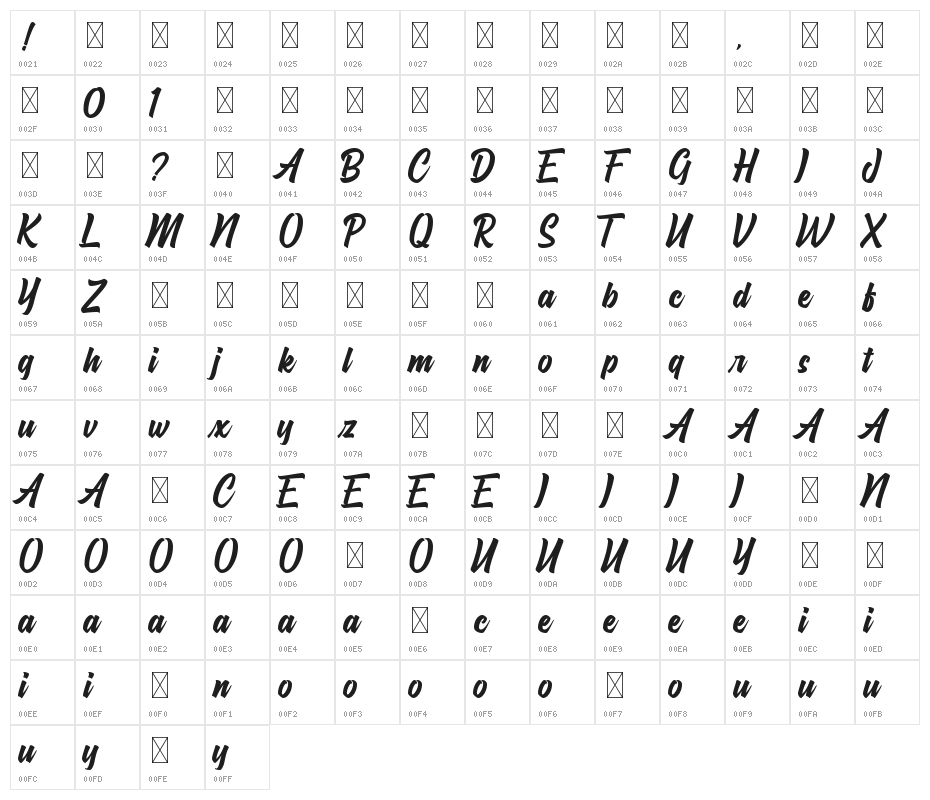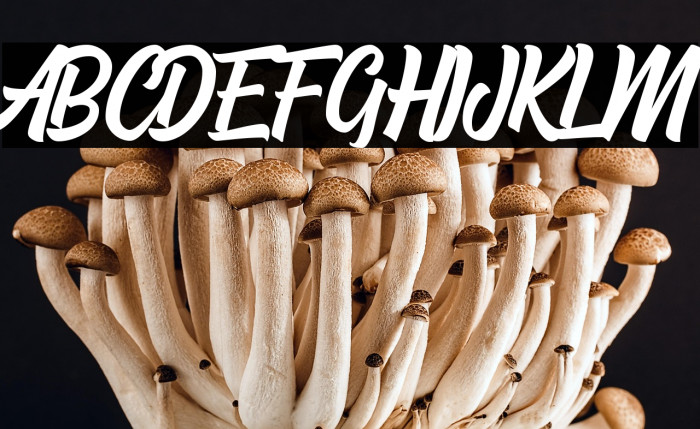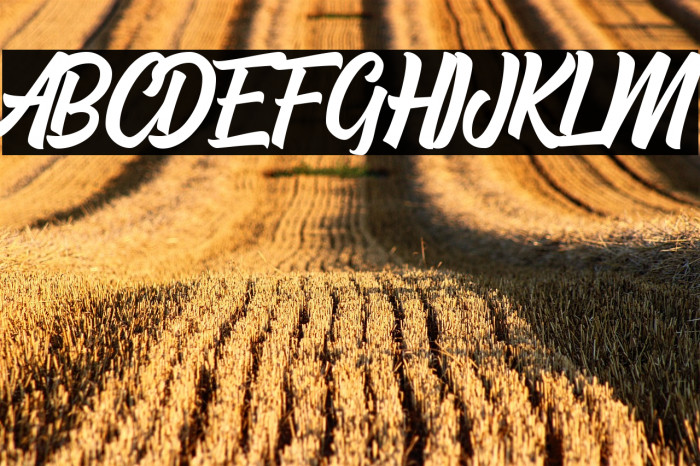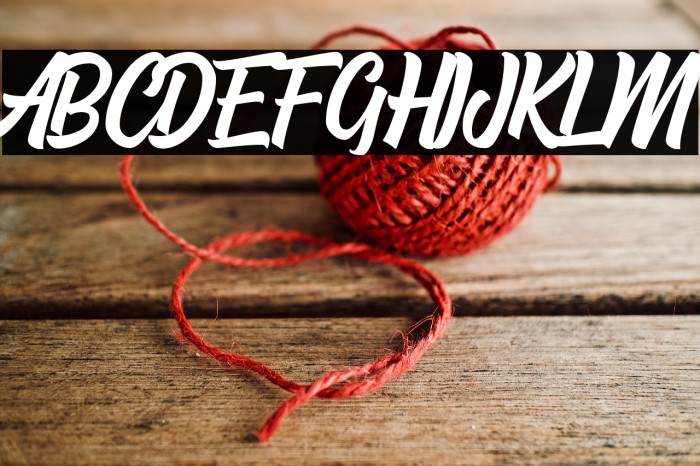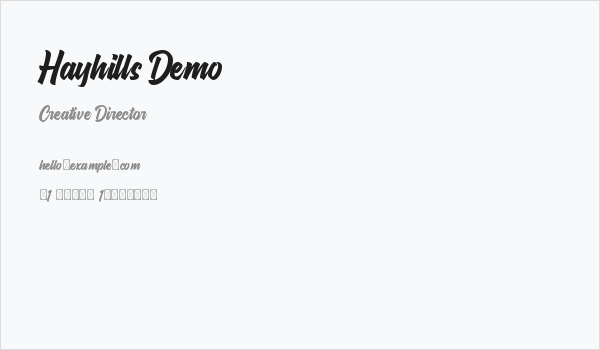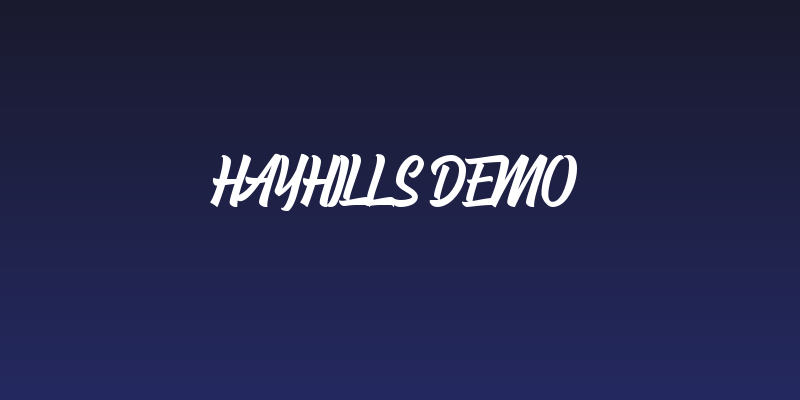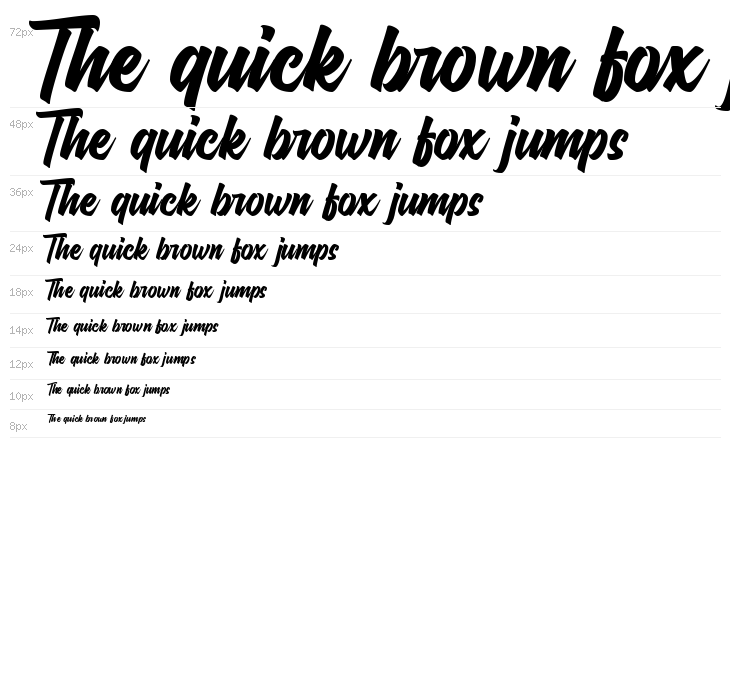
Hayhills Demo Font
Hayhills Demo Description
This font features a bold and dynamic script style with a strong presence. The letters are connected, giving it a fluid and continuous appearance, reminiscent of handwriting. The strokes are thick and consistent, providing a sense of confidence and energy. The uppercase letters are particularly striking, with a slight slant that adds to the overall movement of the text. The lowercase letters maintain the same boldness, ensuring readability while preserving the script's elegance. This font lacks numerals and special characters, focusing solely on the alphabet, which suggests its primary use in decorative or artistic contexts.